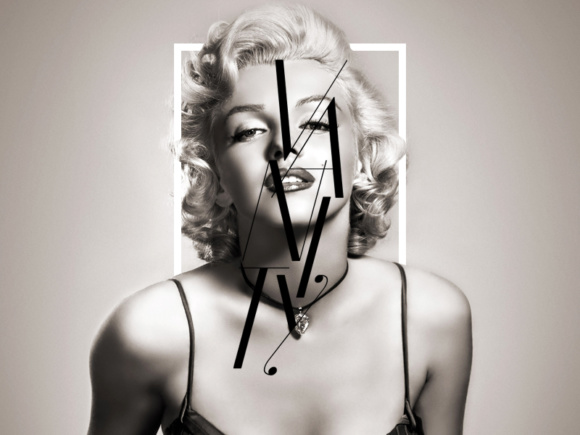
HomePersonal Use FreeVanity Personal Use Free Vanity FacebookXPinterestWhatsApp 1 of 1 About Vanity Font Vanity is a new free modern & sans-serif type family including a set of 12 fonts. From light to bold, plain to italic, narrow to wide, Vanity can fulfill every designing need. DOWNLOAD ON CREATIVE FABRICAThis font is sold and delivered by Creative Fabrica. Font Canyon may earn a commission if you buy through this link. People also explored Spring Alone Font Marquee Subjective Font Veolyta Font Sparkling Font Strenghtque Font Tourism and Travel Icons Font Glory Rose Font Atlenta Battleny Font 437 0 TagsVanity Font Previous articleDead BlockNext articleWhoa LEAVE A REPLY Cancel reply Comment: Please enter your comment! Name:* Please enter your name here Email:* You have entered an incorrect email address! Please enter your email address here Website: Save my name, email, and website in this browser for the next time I comment. Personal Use Free The Royal Personal Use Free Read more about this font Stereofidelic Personal Use Free Read more about this font Nesto Copper 42 Font Personal Use Free Read more about this font Hagia Signal Personal Use Free Read more about this font BLOG Free vs Paid Fonts: Why Investing in Premium Fonts Is Worth It Free vs Paid Fonts: Why Premium Fonts Are Worth It in 2025 The debate of free vs paid fonts continues in the design world. While... The 10 Best Handwriting Fonts to Add Personality to Your Designs Fonts That Capture the Spirit of New York City How to Cut Any Font on Cricut: Convert a Font to SVG (Free)